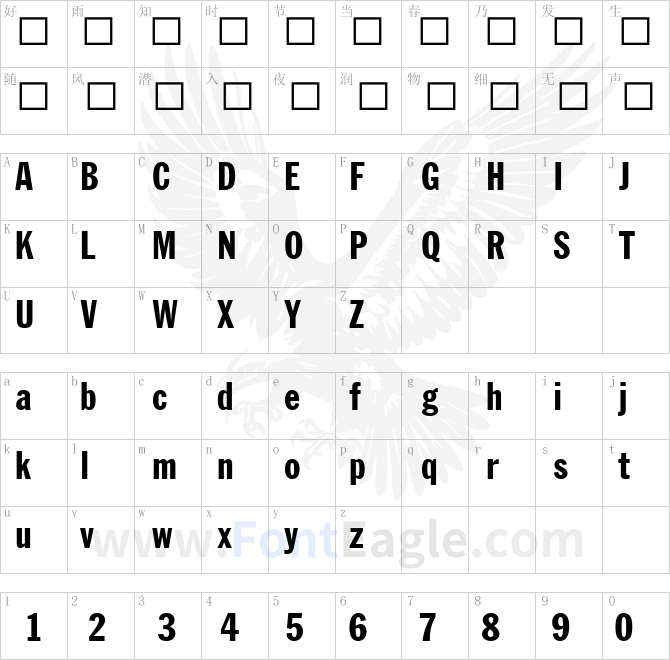
- Font name:Franklin Goth Ext Condensed
- Font Subfamily ID:Monotype – Franklin Goth MT Ext Condensed Regular
- Font Full Name:Franklin Goth Ext Condensed